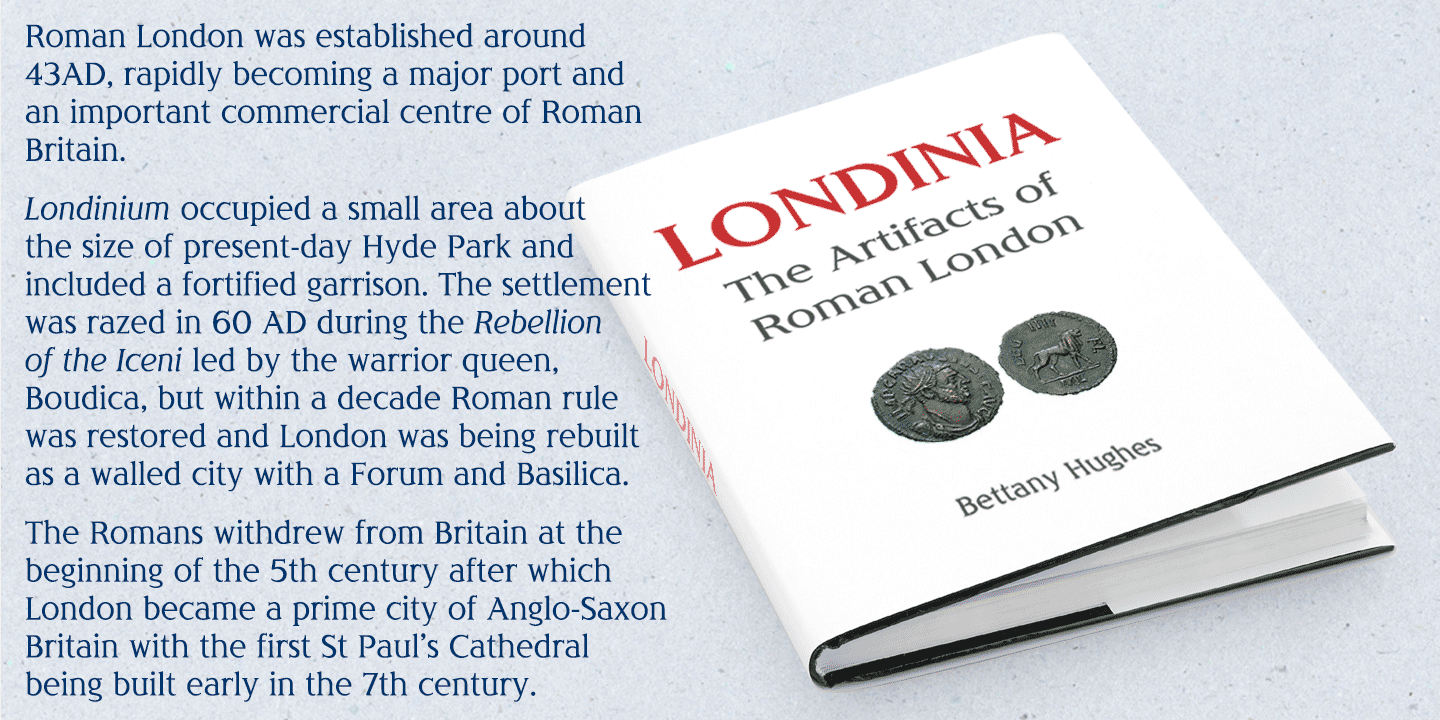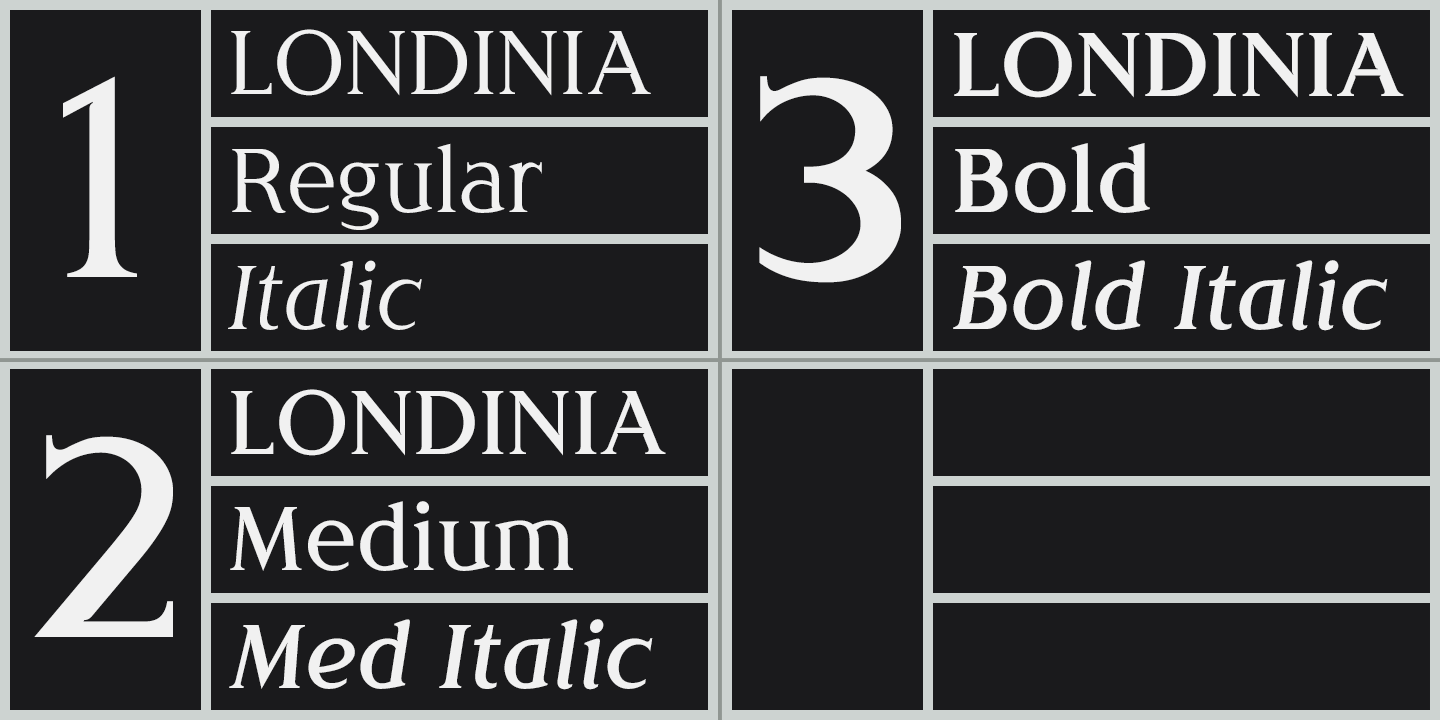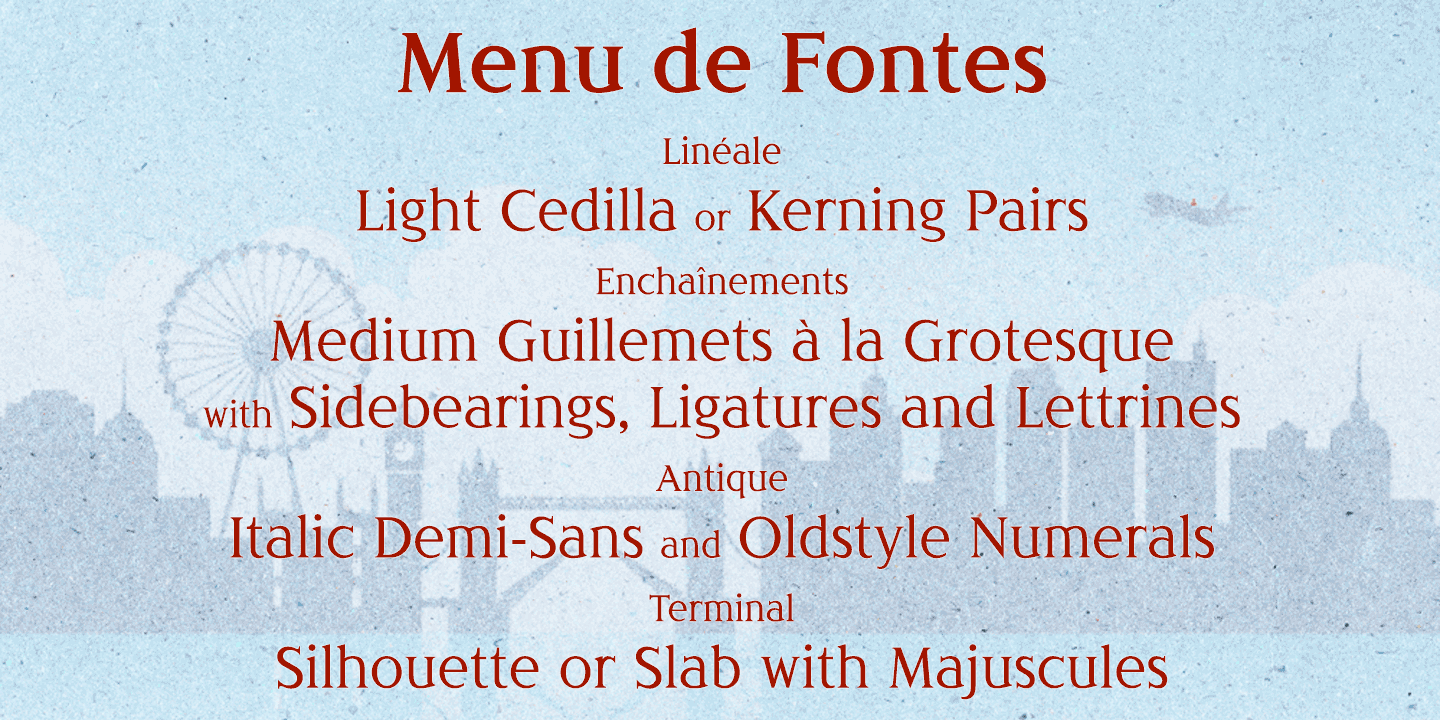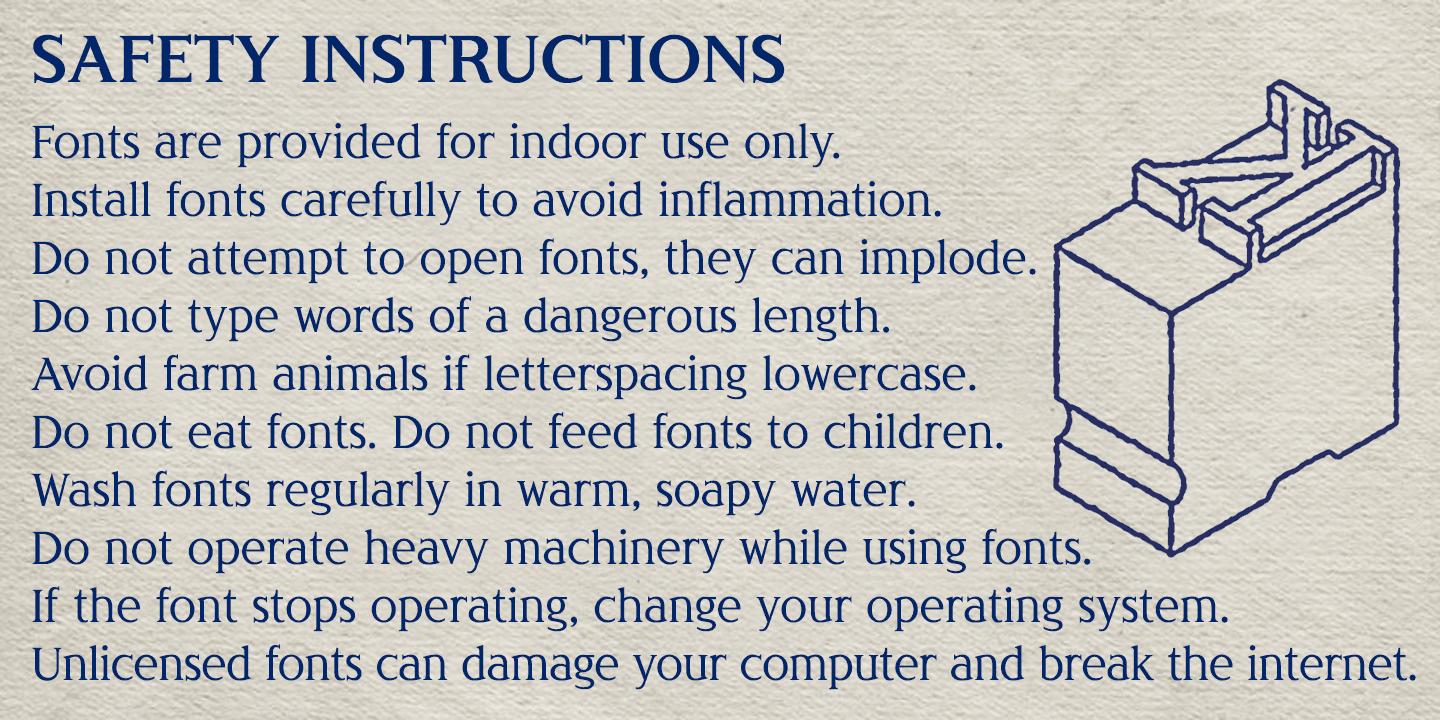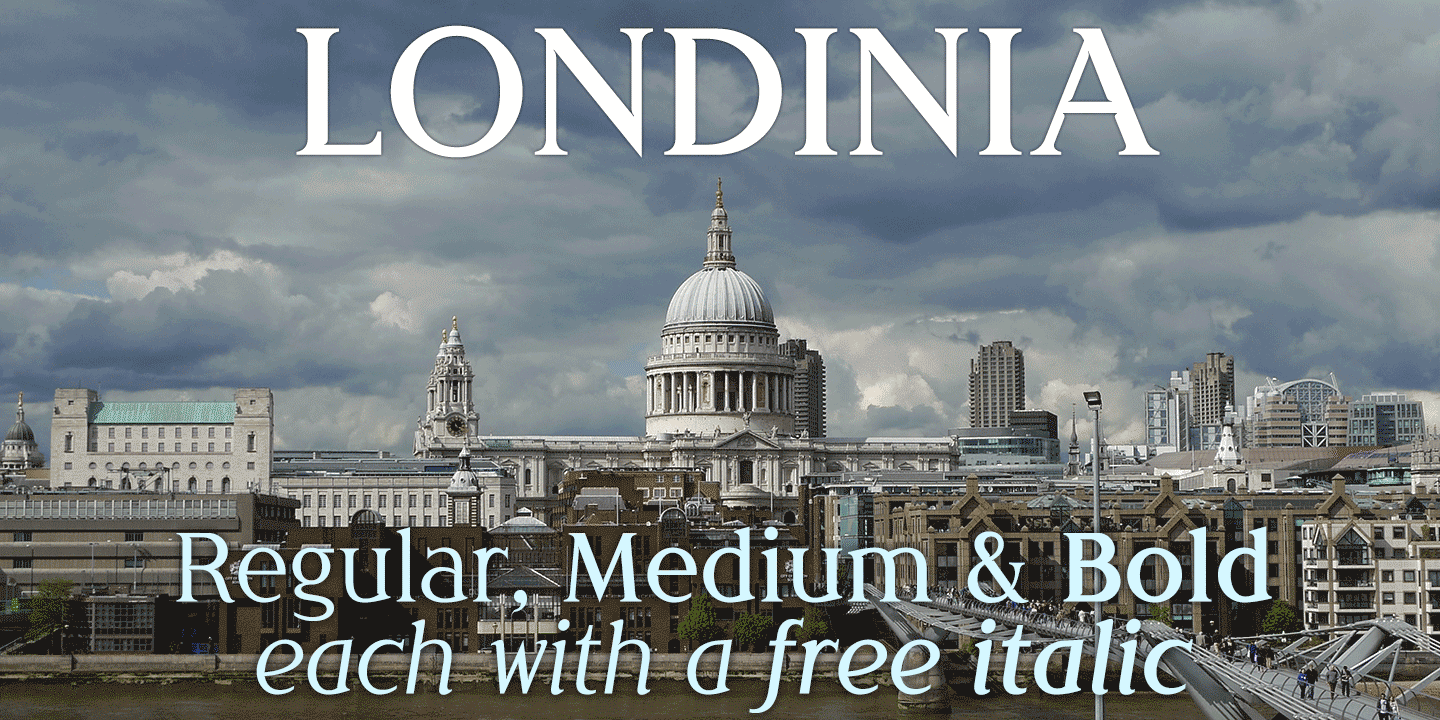
Londinia
About Londinia
Londinia is a contemporary Roman typeface with clear, open shapes, a generous x-height, and streamlined serifs. Small serif-shaped cutaways and subtle incisions give a lift to congested corners. Londinia is available in three weights, each accompanied…